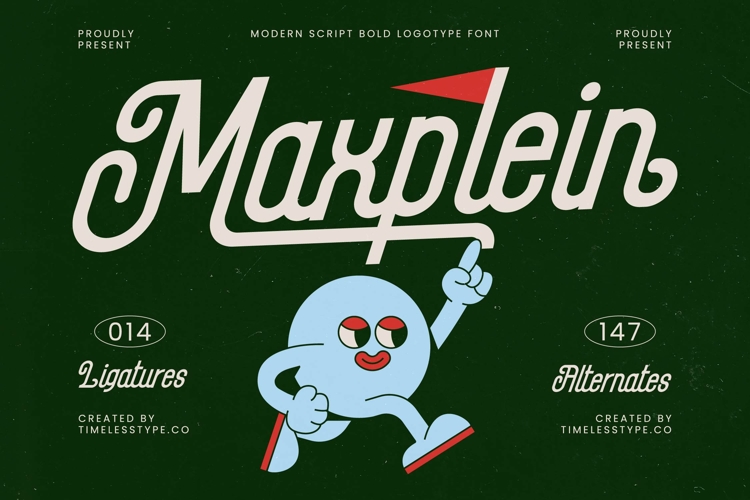
Maxplein - Modern Script Bold Logotype Font
Font Maxplein - Modern Script Bold Logotype Font Script commands immediate attention with its striking presence and distinctive charm. This bold logotype font perfectly fuses classic script elegance with a contemporary edge, making it an ideal choice for designs that demand both sophistication and strong character. Its seamless curves and robust stroke weight ensure excellent legibility and visual impact, crafting truly captivating and memorable typography.
Unleash creative potential with the unmatched versatility of Font Maxplein - Modern Script Bold Logotype Font Script. Featuring an impressive array of extensive ligatures and numerous alternate characters, this font empowers designers to personalize every word, creating truly unique and high-impact textual expressions. It’s engineered for graphic designers seeking to imbue their projects with an authentic, handcrafted yet polished aesthetic that stands out.
With its extensive multilingual support, Font Maxplein - Modern Script Bold Logotype Font Script adapts seamlessly across global markets, making it incredibly versatile for international projects. This global adaptability ensures that your brand’s message resonates universally, maintaining its distinctive style and professional integrity regardless of language barriers. Expand your reach and communicate effectively across diverse cultural landscapes with this sophisticated script.
Font Maxplein - Modern Script Bold Logotype Font Script is the perfect asset for elevating diverse applications such as luxury branding, elegant packaging, impactful editorial design, and distinctive headlines. Its robust yet refined aesthetic is ideal for product labels, restaurant branding, exclusive event invitations, and any project requiring a blend of modern flair and timeless sophistication. Make a lasting impression and define your brand's unique identity.